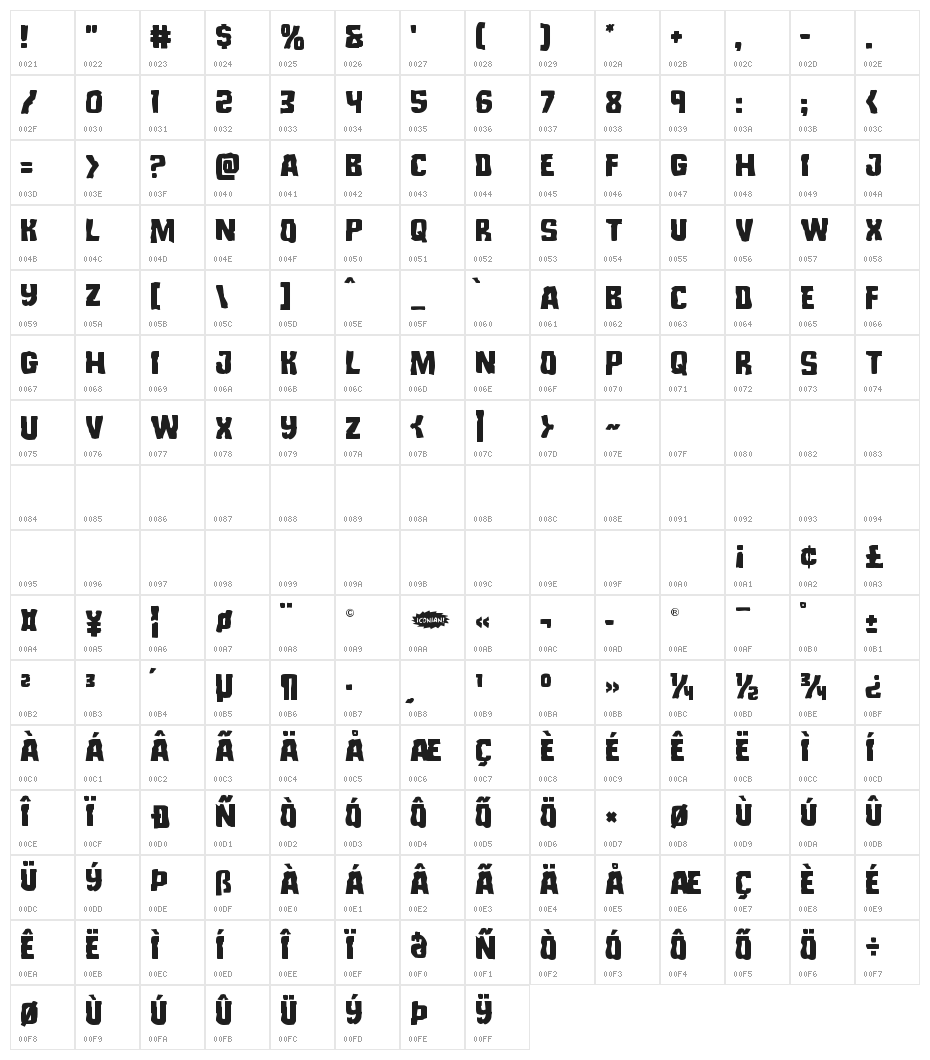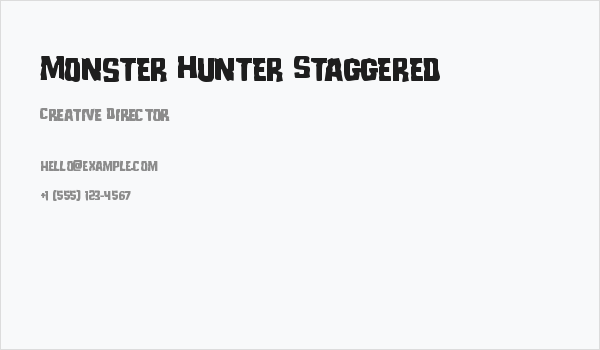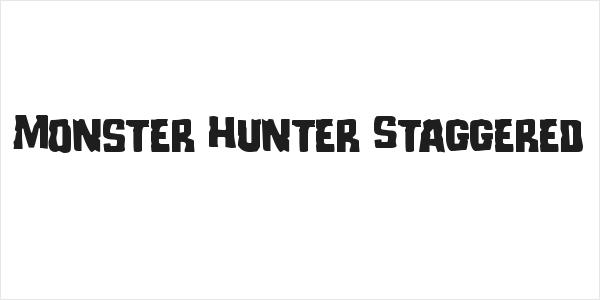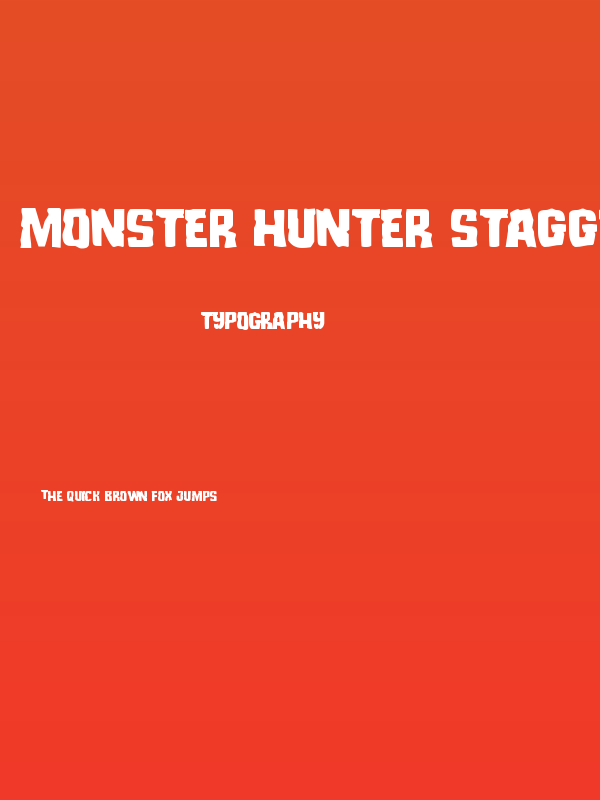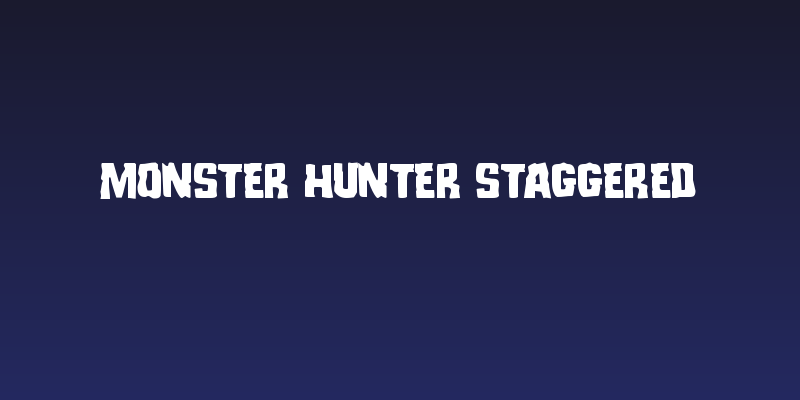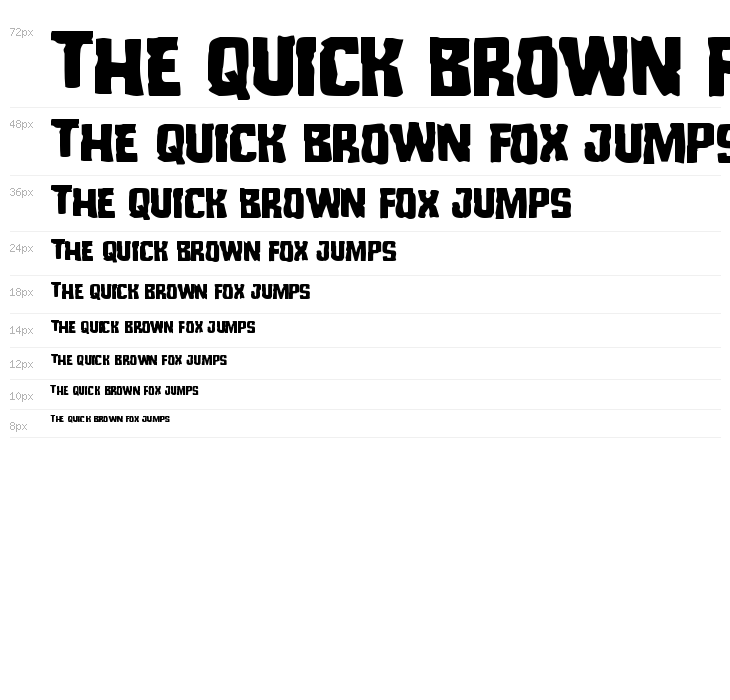
Monster Hunter Staggered Font
Monster Hunter Staggered Description
This font features a bold, rugged design with a staggered and uneven appearance, giving it a dynamic and energetic feel. The characters are thick and blocky, with irregular edges that create a sense of movement and intensity. The uppercase letters are particularly striking, with a strong presence that commands attention. The numbers and special characters maintain the same bold and irregular style, ensuring consistency throughout the font. This design is perfect for projects that require a bold statement or a sense of adventure and excitement.
| Proposed Projects | Ideal for video game titles, movie posters, adventure-themed branding, and merchandise. |